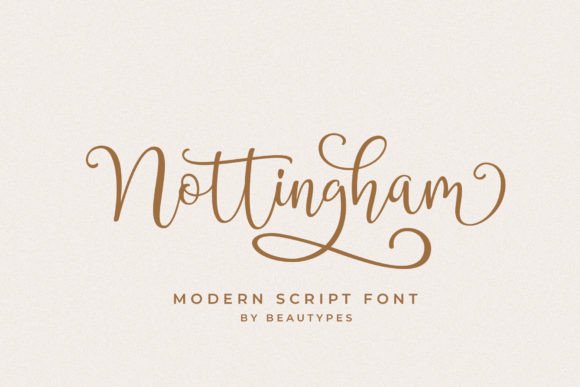
Nottingham Script: Unveil the Elegance of Handcrafted Beauty
Enter the world of Nottingham Script, a mesmerizing handwritten font that captures the essence of charm and playfulness. This enchanting script font boasts a heartwarming personality, effortlessly adding a touch of warmth and elegance to your creative projects.
Journey through a realm of boundless possibilities with Nottingham Script. Seamlessly blend it into your wedding invitations, adding a touch of romance and sophistication. Let your logos and branding exude a unique charm that sets you apart from the crowd. Unleash your creativity in photography and advertisements, making your visuals pop with personality.
Nottingham Script's versatility extends to social media posts, product packaging, and designs, adding a touch of allure to every element. Its presence enhances labels, wedding designs, stationery, and special events, transforming them into exquisite expressions of art.
Beyond its aesthetic appeal, Nottingham Script is a breeze to use. Encoded with PUA, accessing its stunning glyphs and ligatures is effortless, allowing you to incorporate intricate details and variations into your designs with ease.
Embrace Nottingham Script and elevate your creative endeavors to new heights. Its captivating charm, effortless style, and user-friendly nature make it the perfect font for adding a touch of magic to your projects.
Nottingham Script: Where Beauty and Functionality Intertwine